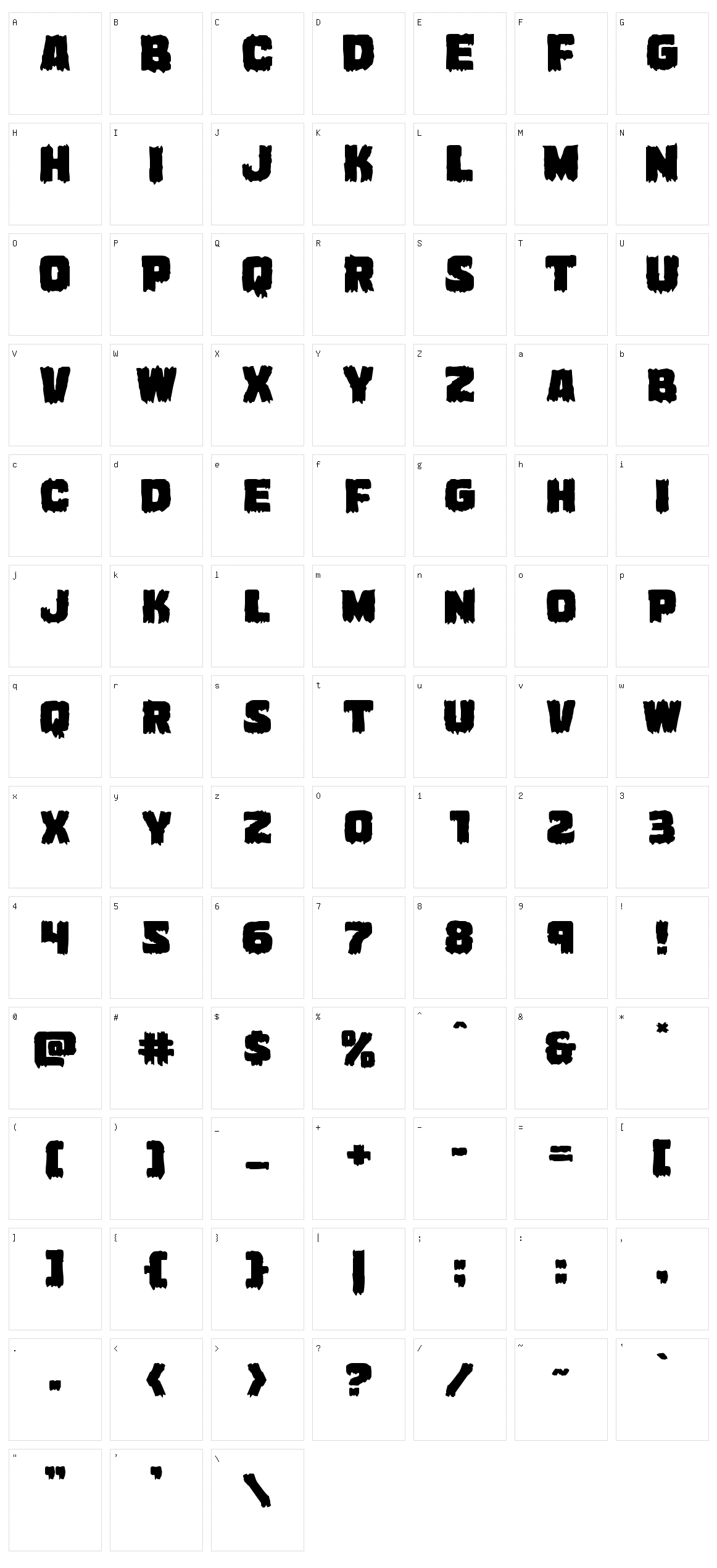
This font comes with the following 20 versions: Regular, Italic, Bold, Bold Italic, Condensed, Condensed Italic, Expanded, Expanded Italic, Outline, Outline Italic, Bold Outline, 3D, 3D Italic, Academy, Overlap, Overlap Italic, Rotated, Rotated 2, Rotalic and Leftalic.